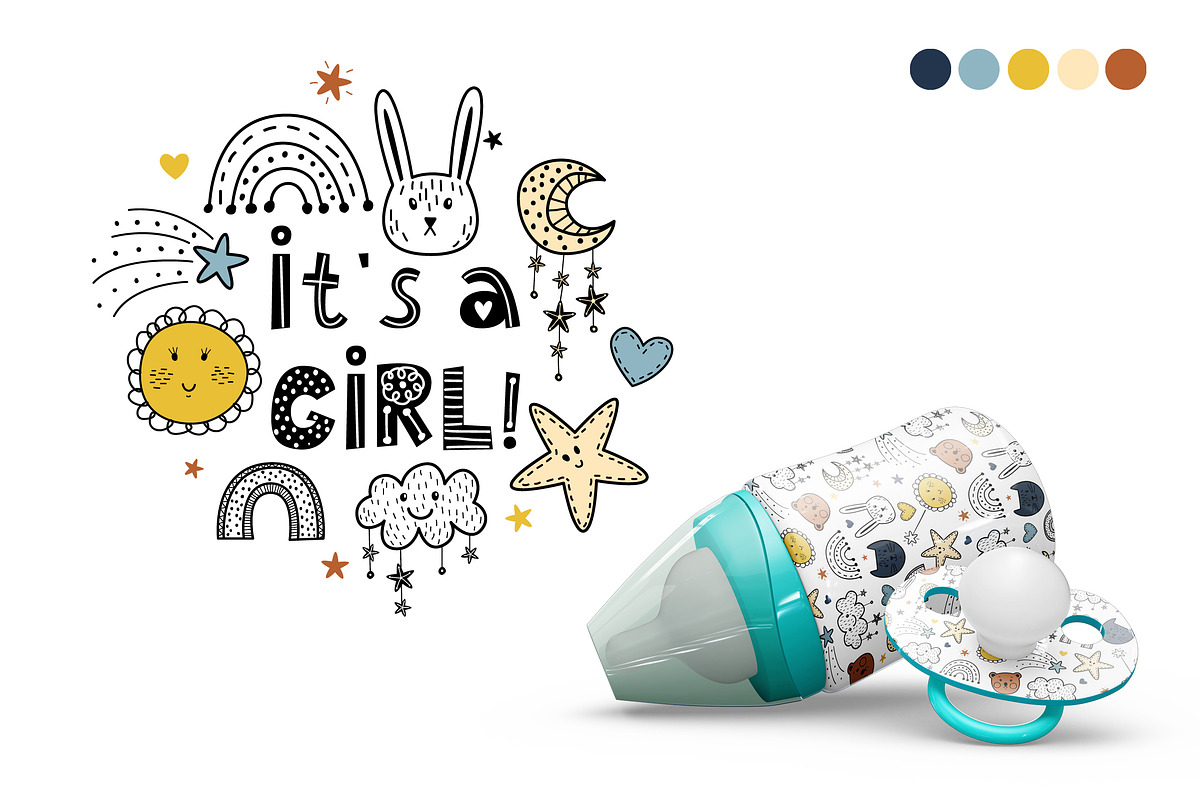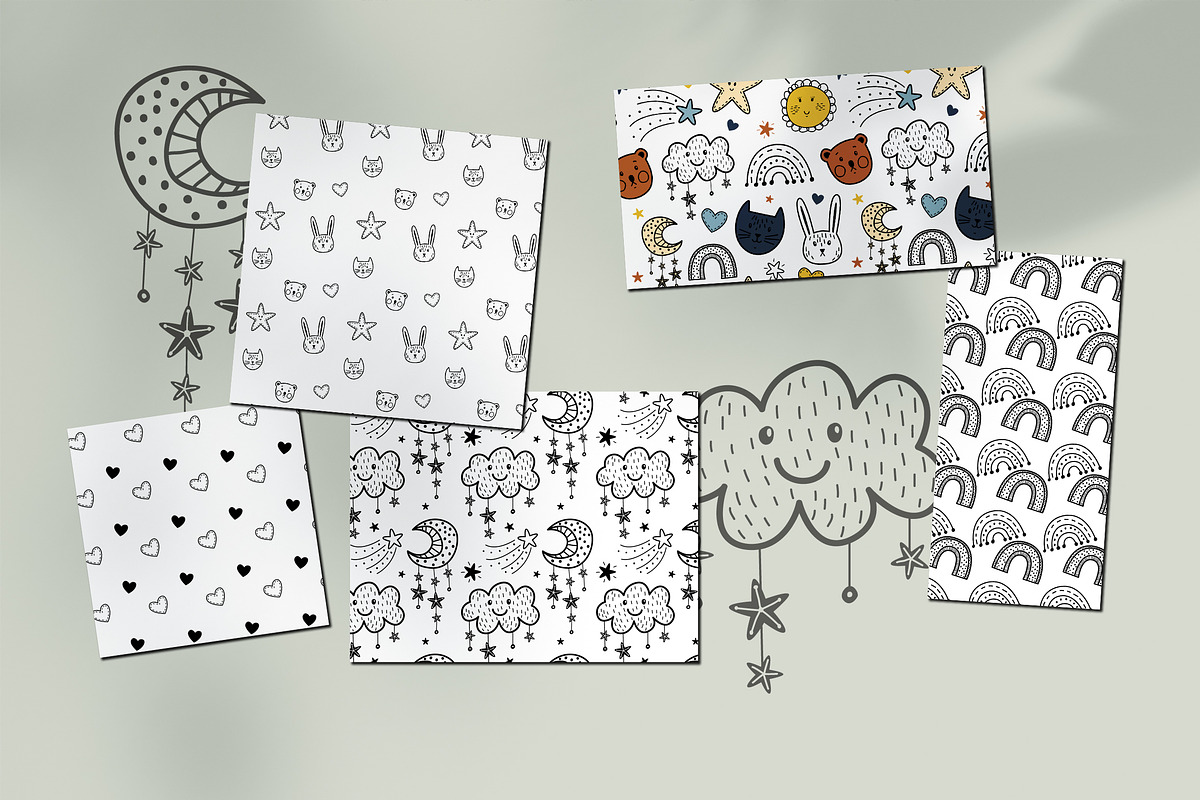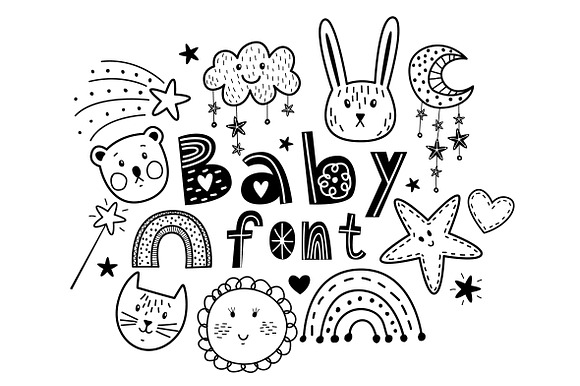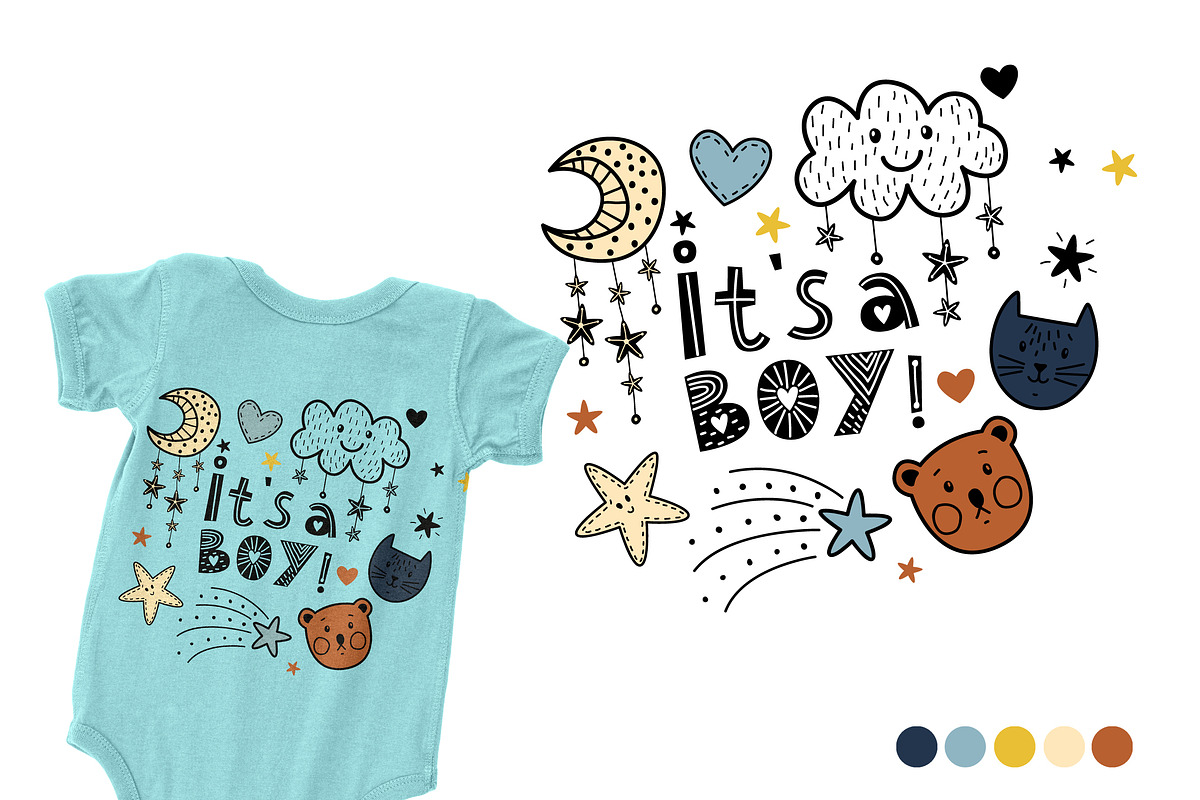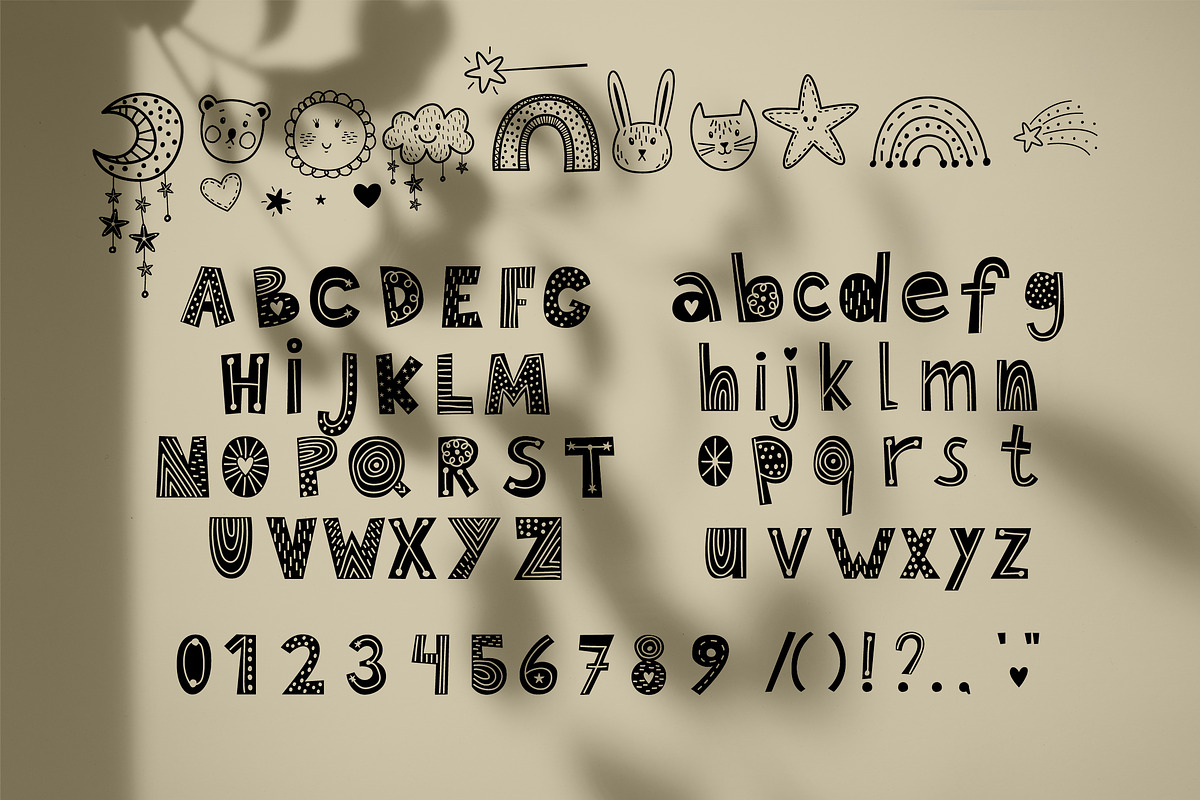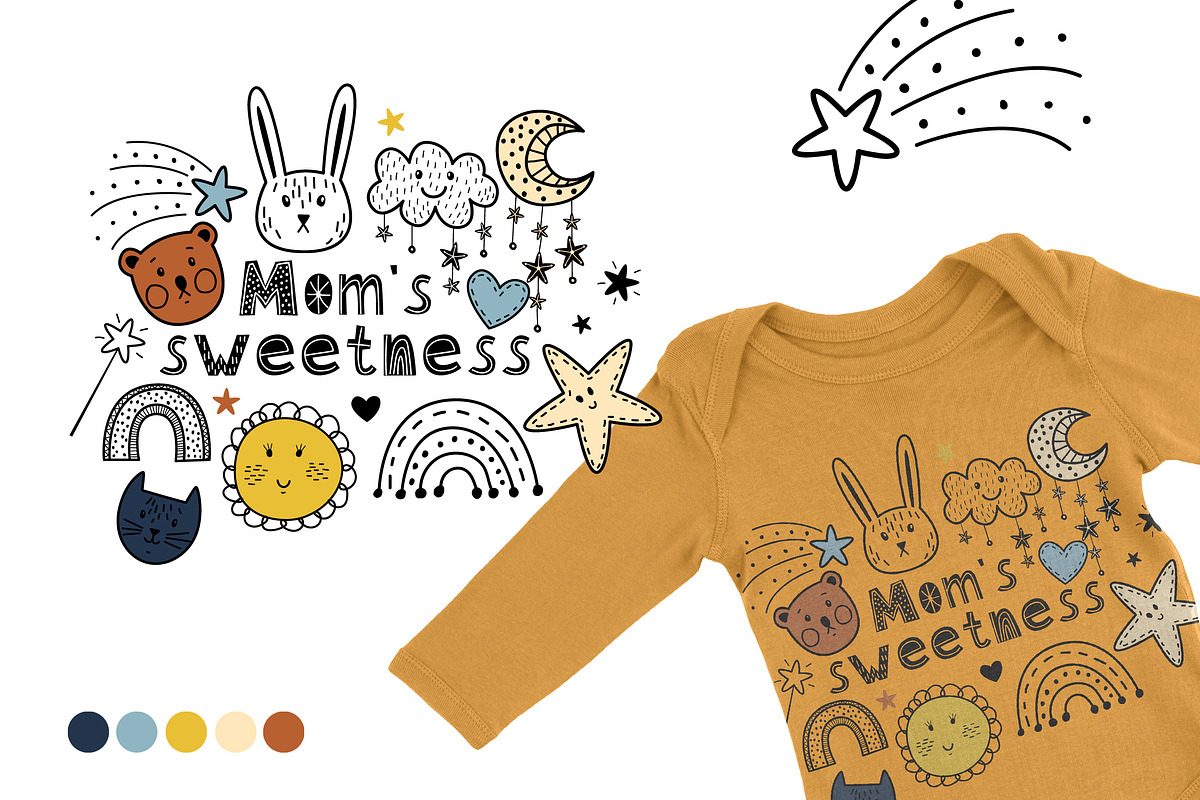
Baby cute font
--- Attention! Drawings in the font have through holes.
Baby cute font by Chikovnaya fits naturally into Branding, posters, packaging, typography.